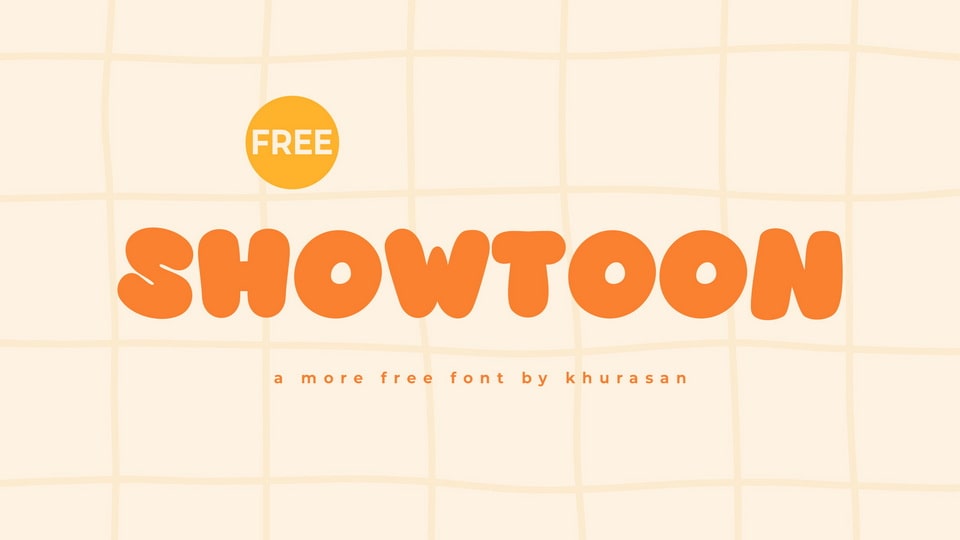
Download Showtoon font, a chunky, cheerful display typeface bursting with cartoon energy and bold personality, bubbly letterforms and smooth, rounded edges.